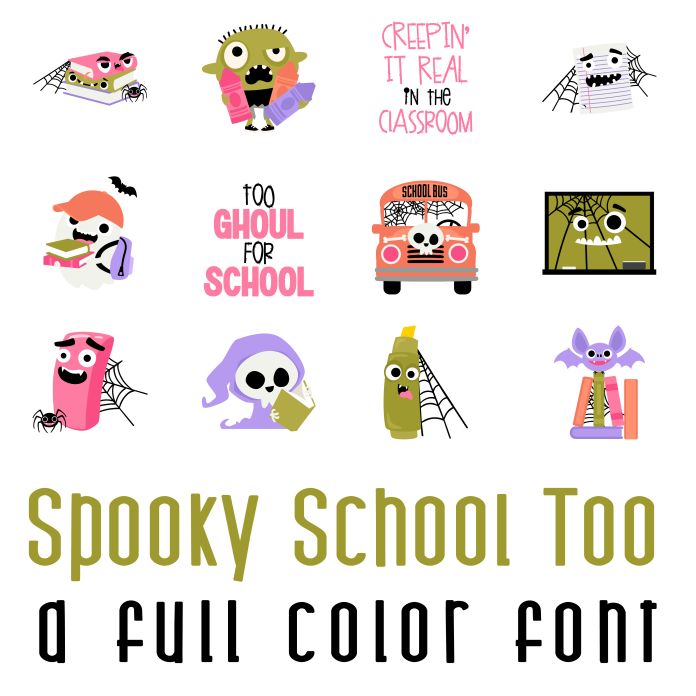
This full color doodlebat font features 26 spooky school themed images and monsters perfect for Halloween, classrooms, teachers, gifts, decor, scrap book pages, planner stickers and more!